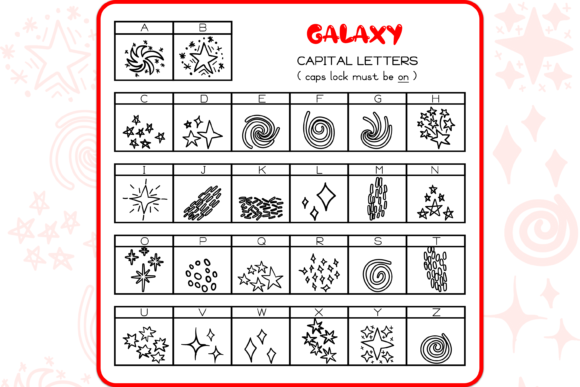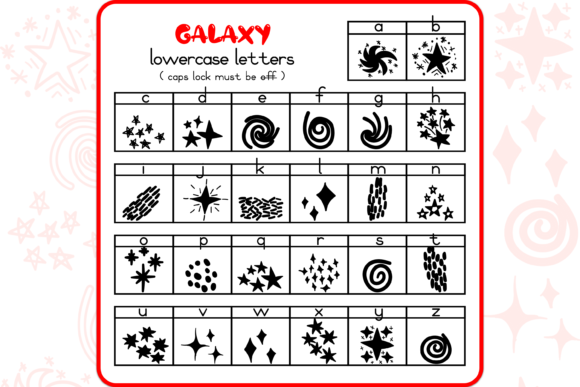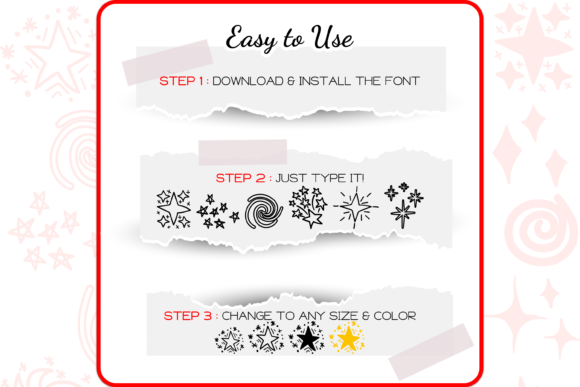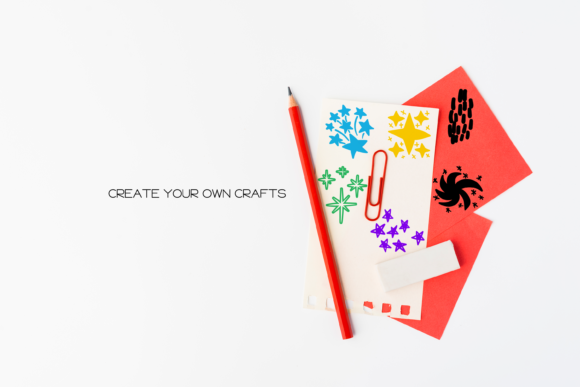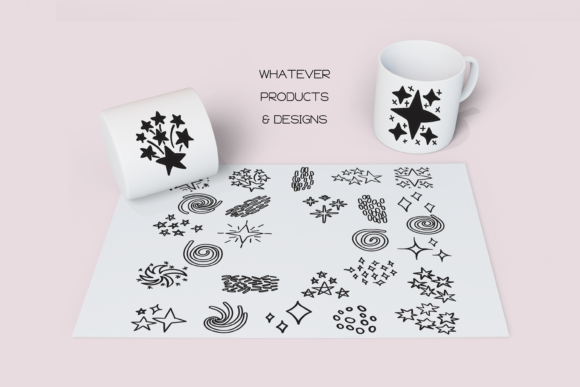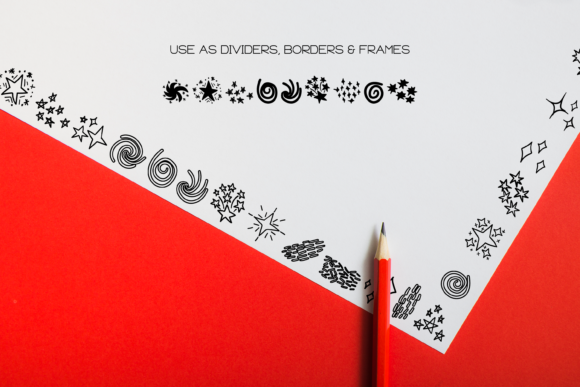
The Magic of Galaxy Dingbats Font: A Designer’s Dream Come True
Have you ever been in the middle of a design project, and suddenly, you just can’t seem to find the right element to take your work to the next level? I recall a recent experience where I was working on a branding project for a new coffee shop, and I needed something special to make their packaging stand out. That’s when I stumbled upon the Galaxy Dingbats Font – a game-changer for designers, crafters, and creative hobbyists alike!
A Personal Review: What I Love and What to Consider
- Unique and adorable hand-drawn doodles of stars and the Milky Way 🌠
- 52 glyphs to play with, perfect for borders, dividers, frames, and more 📚
- Easily adds a touch of whimsy and magic to any design ✨
- Versatile and can be used for a wide range of projects, from branding to party decorations 🎉
- Clean and crisp design, making it perfect for both digital and print projects 📊
- Some users might find the font a bit limited in terms of variations ⚠️
- Not suitable for body text or long paragraphs, as it’s meant for decorative use only 📝
The Story Behind Galaxy Dingbats Font: A Designer’s Inspiration
Imagine a designer, sitting under a starry night sky, dreaming of creating a font that captures the magic of the universe. That’s roughly how Galaxy Dingbats Font came to be! The designer, inspired by the beauty of the stars and the Milky Way, hand-drew each glyph to create a unique and enchanting font.
| Font Name | Galaxy Dingbats Font |
| Author | WADLEN |
Q: Is Galaxy Dingbats Font suitable for body text?
A: No, Galaxy Dingbats Font is designed for decorative use only and is not suitable for long paragraphs or body text.